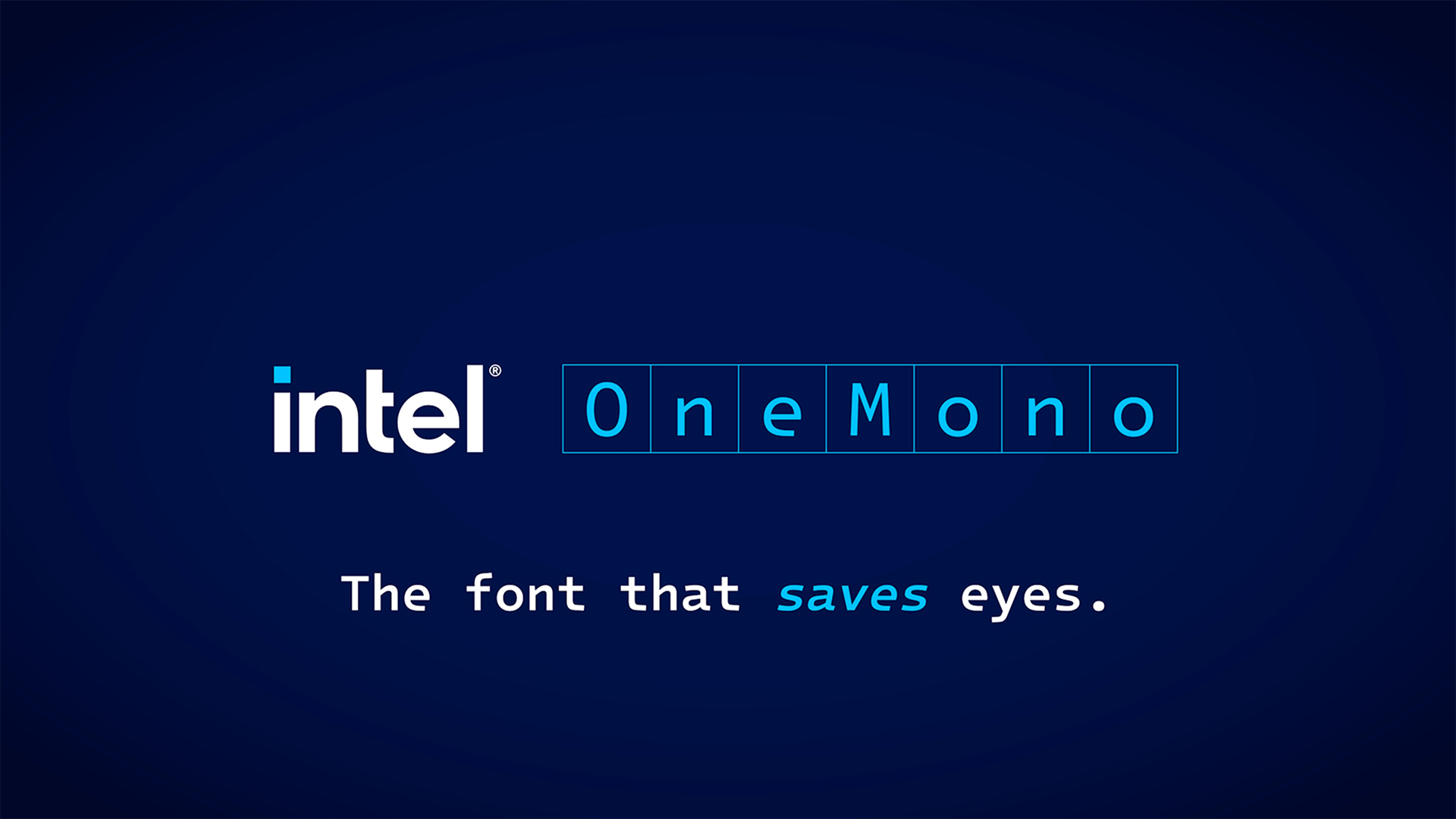
(Image credit: Intel) Intel has reversed its decision to shelve its open-source font project designed specifically with developers in mind. The font’s GitHub repository was archived earlier this week, only for the company to reportedly restore the project and potentially continue to maintain it. The cancellation came amid a wider reduction in Intel’s open-source efforts. According to Phoronix, Intel has been closing down projects where development has slowed, or the employees responsible for them have exited the company.Introduced back in 2023, One Mono is a monospace font where each character occupies the same horizontal width. Intel carried out the development in collaboration with type design studio Frere-Jones Type and marketing agency VMLY&R. Working with low-vision and legally blind developers during the design process, live testing sessions were conducted to identify characters that could be difficult to distinguish when reading code.“Identifying the typographically underserved low-vision developer audience, we designed the Intel One Mono typeface for maximum legibility to address developers' fatigue and eyestrain and reduce coding errors,” said Intel in its introduction.The font was designed with several features to improve legibility, including distinctions between similar-looking letters and coding characters. For example, characters such as the lowercase “e” and uppercase “G” were given more distinctive shapes to make them easier to identify. The difference in height between uppercase and lowercase letters was also increased, along with longer ascenders and descenders to make blocks of code easier to read. Additionally, the font supports more than 200 languages using the Latin script and is available in Light, Regular, Medium, and Bold weights, along with matching italics.As mentioned, One Mono is available under an open-source license; thus, developers are free to use and modify it. Unfortunately, the font has not witnessed any significant updates since 2024, with activity during 2025 reportedly limited to Readme updates. Thus, its archival seemed pretty obvious, especially with Intel shutting down projects that were no longer seeing active development. For now, the font has managed to avoid becoming a casualty of Intel’s open-source cleanup. While the project remains silent, its revival means the developer-focused font is not being abandoned after all.Follow Tom's Hardware on Google News, or add us as a preferred source, to get our latest news, analysis, & reviews in your feeds. Get Tom's Hardware's best news and in-depth reviews, straight to your inbox. Kunal Khullar is a contributing writer at Tom’s Hardware. He is a long time technology journalist and reviewer specializing in PC components and peripherals, and welcomes any and every question around building a PC.
Intel revives One Mono font after brief retirement during open-source purge — typeface built to fight coder eyestrain gets reprieve